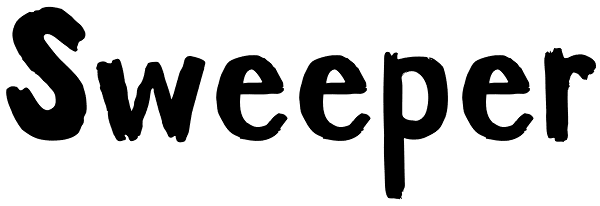
Sweeper
Sweeper is a font with several personalities; it’s friendly and scary at the same time, almost like Santa Clause, but nicer. Sweeper has got a handy touch with a lot of different possibilities. You can use it in several occasions. Sweeper is...
Sweeper
Sweeper Slanted